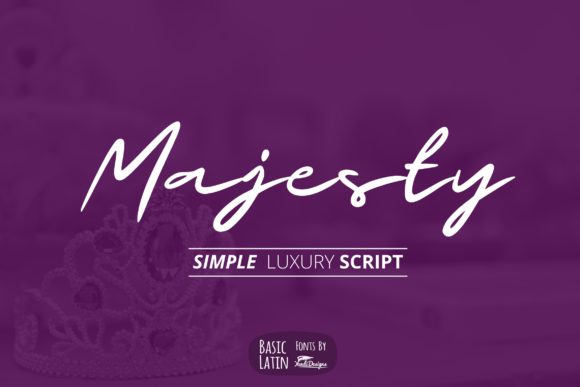
Introducing _Majesty Font_, an exquisite script designed to bestow your designs with an aura of grace and charm. This meticulously crafted font is the brainchild of _YandiDesigns_, a renowned artist with an extraordinary talent for creating fonts that resonate with elegance and sophistication.
_Majesty Font_ is not just a font; it's an artistic masterpiece that will add a touch of luxury and refinement to your creative endeavors. Its flowing curves and delicate lines exude a timeless allure, reminiscent of handwritten letters penned with love and care. Whether you're designing logos, posters, invitations, or any other project that demands a touch of sophistication, _Majesty Font_ is your perfect companion.
Step into a world of captivating designs as you embrace _Majesty Font_. Its versatility makes it a perfect fit for a wide range of projects. Create logos that exude professionalism and leave a lasting impression, design posters that capture attention and ignite imaginations, and craft invitations that ooze elegance and charm. With _Majesty Font_, your creative potential knows no bounds.
Experience the joy of expressing yourself through the art of typography with _Majesty Font_. Let your designs speak volumes, convey emotions, and create connections that resonate with your audience. Whether you're a seasoned designer or just starting, _Majesty Font_ is an invaluable addition to your creative toolkit.